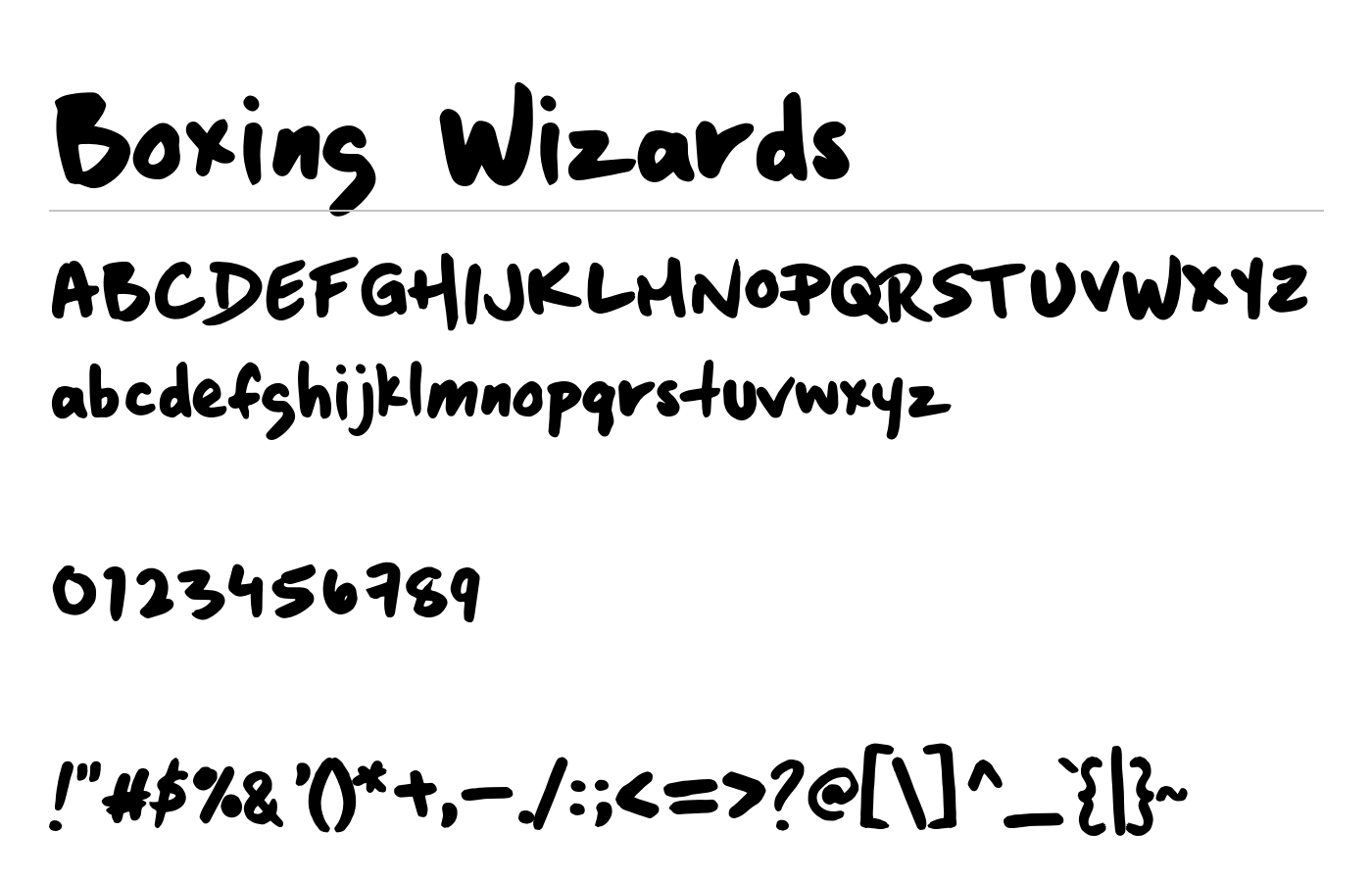
Boxing Wizards is a bold, playful handwritten font with a casual and friendly vibe. Its organic, slightly irregular shapes and thick strokes make it perfect for fun, informal designs like children’s books, comics, or lively branding. This font adds energy and personality, making it ideal for eye-catching headlines and creative projects.
Boxing Wizards Font
About Boxing Wizards Font